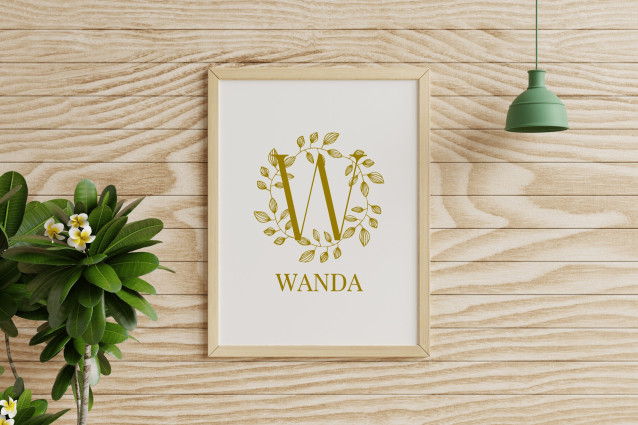
Florynthia Font
Florynthia Monogram Font is a luxurious serif monogram font that combines timeless uppercase lettering with intricate, hand-drawn floral embellishments. Inspired by botanical elegance and classical design, this font is perfect for wedding stationery, high-end branding, Cricut crafts, and romantic packaging designs.